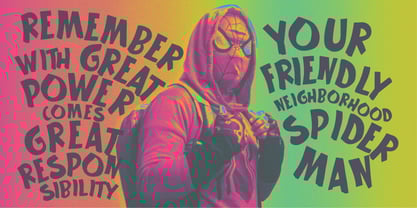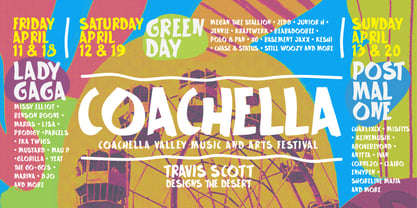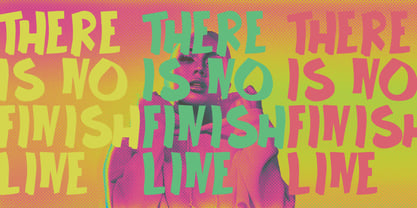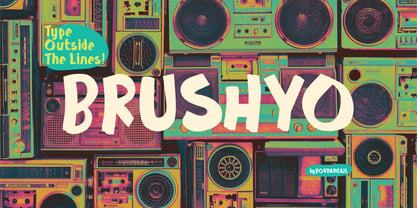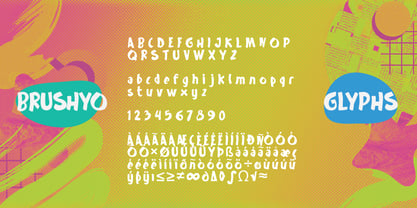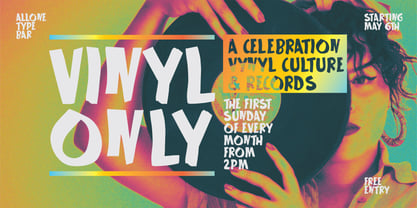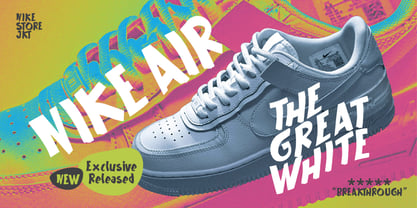
Brushyo
Brushyo – Type Outside the Lines!
Unleash creativity with Brushyo, a bold, hand-drawn brush font that blends raw energy with playful personality. Inspired by expressive brush strokes and the unfiltered attitude of street art, Brushyo captures the essence of handcrafted imperfection—giving every design a unique and dynamic feel. Its bold uppercase commands attention, while the relaxed lowercase adds a welcoming charm, striking the perfect balance between edgy and approachable.
Brushyo thrives wherever bold statements are needed. Whether you're crafting a retro-inspired design or adding a rebellious urban twist, this font is your go-to for standing out. With its dynamic, imperfect strokes, Brushyo brings an authentic handcrafted feel to your designs—perfect for brands that dare to stand out.
Expressive & Playful - Imperfect yet confident strokes give your text a natural, artistic touch.
Versatile & Eye-Catching - Perfect for music festival, posters, apparel, branding, packaging, magazine layouts
Retro Meets Street Style - A fusion of vintage vibes and modern urban edge, making your message pop.